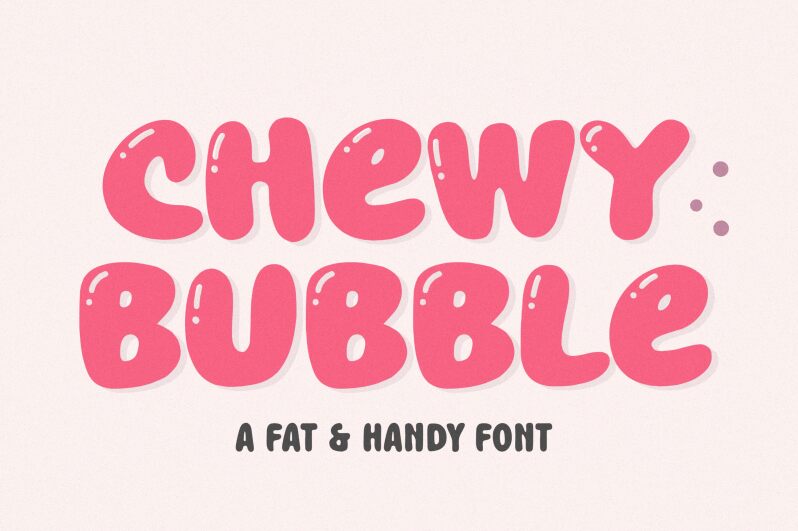
Chewy Bubble
Chewy Bubble font is a free display font developed by Balpirick Studio in a playful and bouncy cartoon style. Offering letters with a chunky and rounded appearance, its youthful energy can make any creative project fun and exciting. It also has this distinct retro vibe that enhances its presence to grab the attention of readers or viewers.
This resource can be used in branding design, packaging design, book cover titles, business cards, flyers, system interfaces or menu designs. Posters and banners could become more readable if this colorful font was used as it combines readability with an aesthetic that inspires smiles all around.